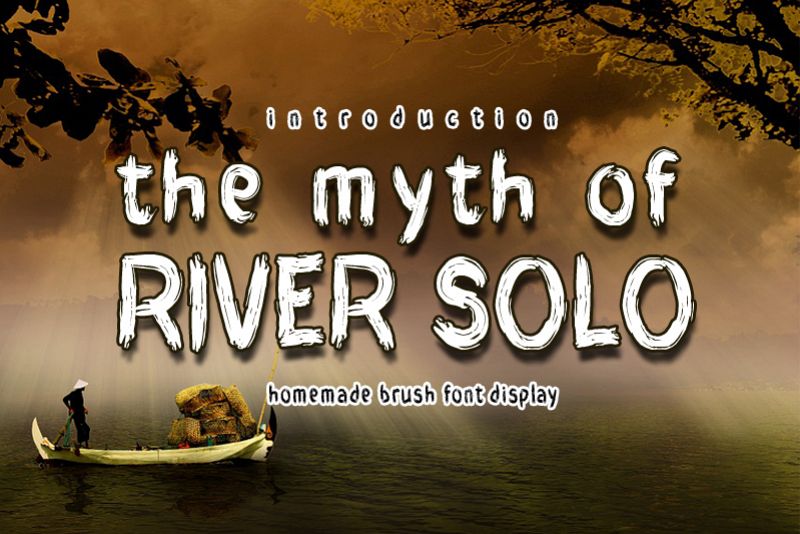
THE MYTH of RIVER SOLO
the myth of RIVER SOLO
THE MYTH of RIVER SOLO Font is font with handmade BRUSH effect.
This font is great for your works, suitable for branding, logo, poster, t-shirt, book cover and creative job. THANK YOU :)